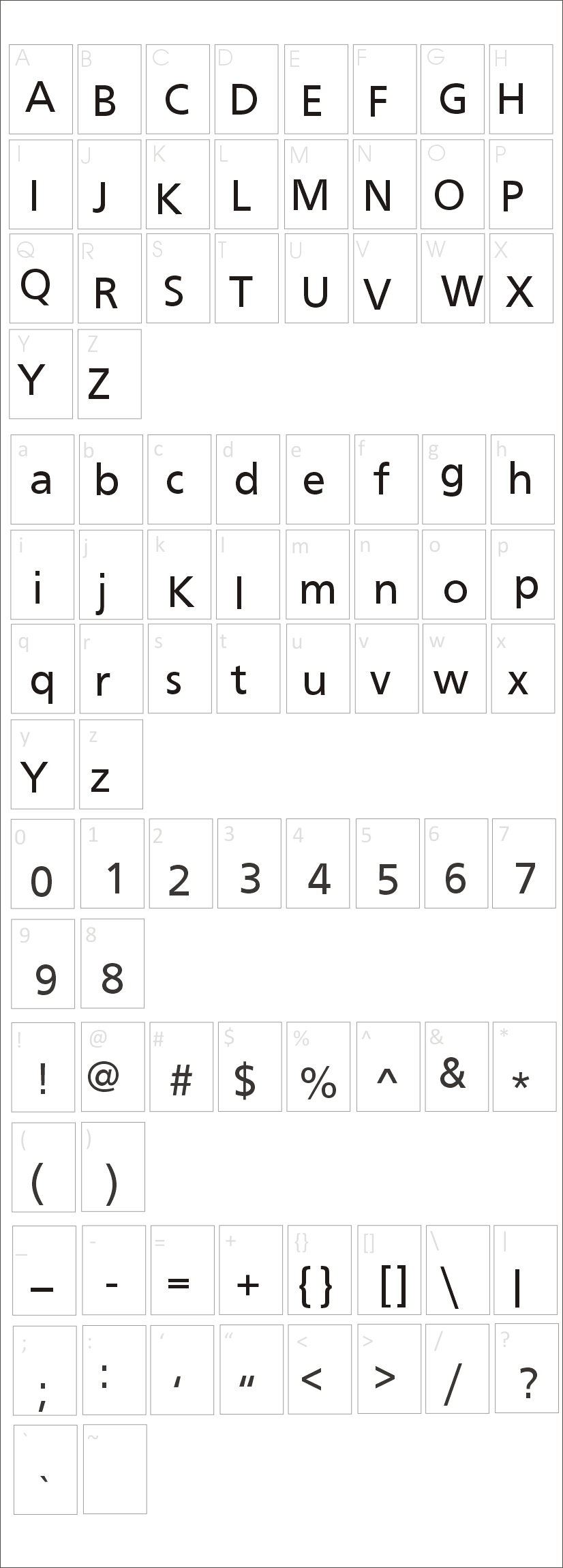
| Font Name: | Frutiger Font Family |
| Font Designer: | Adrian Frutiger |
Frutiger is a renowned font family known for its clean lines, harmonious proportions, and exceptional legibility. This typeface is widely regarded as a classic and is used in various applications, from branding and signage to print and digital media.
Key Features of the Frutiger Font Family:
- Classic and Elegant: Frutiger’s timeless design and refined aesthetics make it a versatile choice for a wide range of projects.
- Exceptional Legibility: The font’s clear and balanced letterforms ensure easy reading on various screen sizes and devices.
- Harmonious Proportions: Frutiger’s harmonious proportions and consistent design create a cohesive and professional appearance.
- Wide Character Support: The font family supports a broad range of languages and characters making it a global-friendly choice.
- Multiple Weight Options: Frutiger includes multiple weight options (e.g., Regular, Bold, Italic), allowing you to find the perfect style for your specific needs.
Ideal Use Cases for Frutiger Font Family:
- Branding: Use Frutiger for logos, business cards, and other branding materials to create a timeless and sophisticated identity.
- Signage: Frutiger is often used for signage and wayfinding systems due to its excellent legibility and clear design.
- Print Design: Incorporate Frutiger into brochures, flyers, and other print materials to add a touch of elegance and professionalism.
- Web Design: Use Frutiger for headlines, body text, and other typographic elements to enhance your website’s visual appeal.
- Corporate Presentations: Frutiger’s classic and elegant design can help make your presentations more impactful.